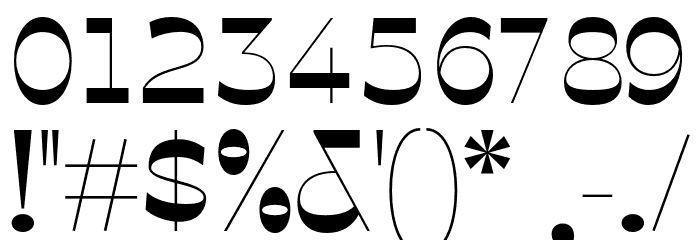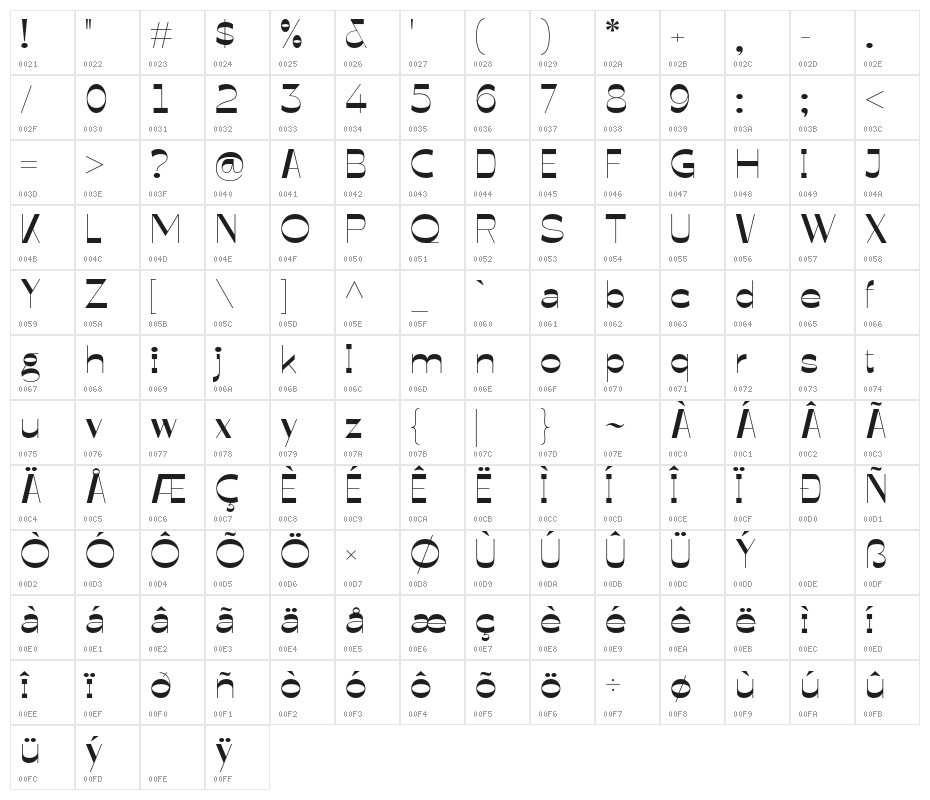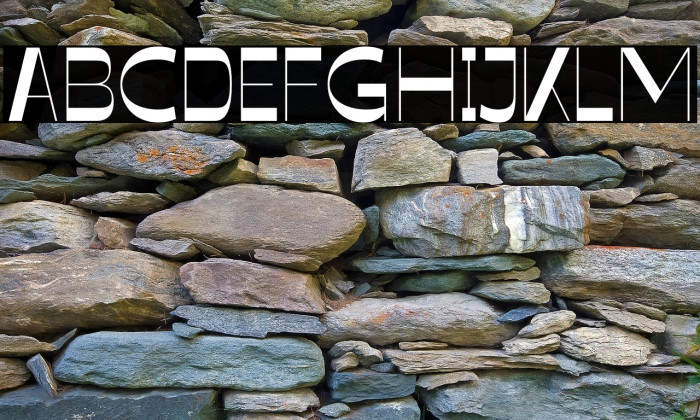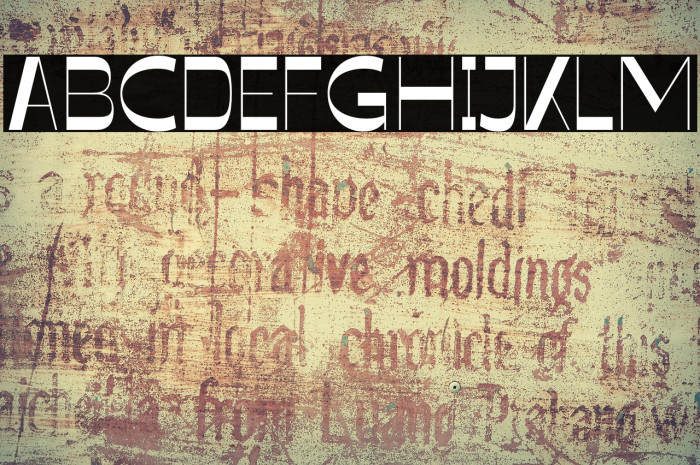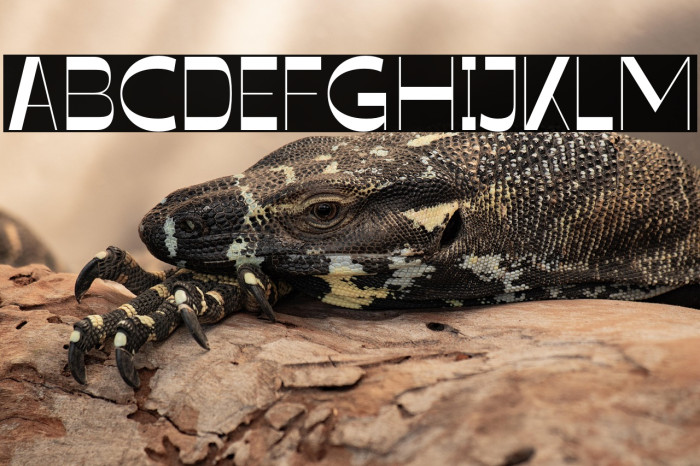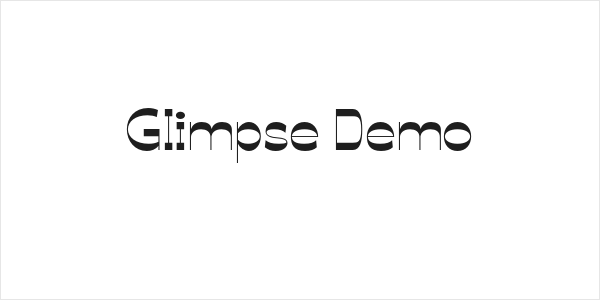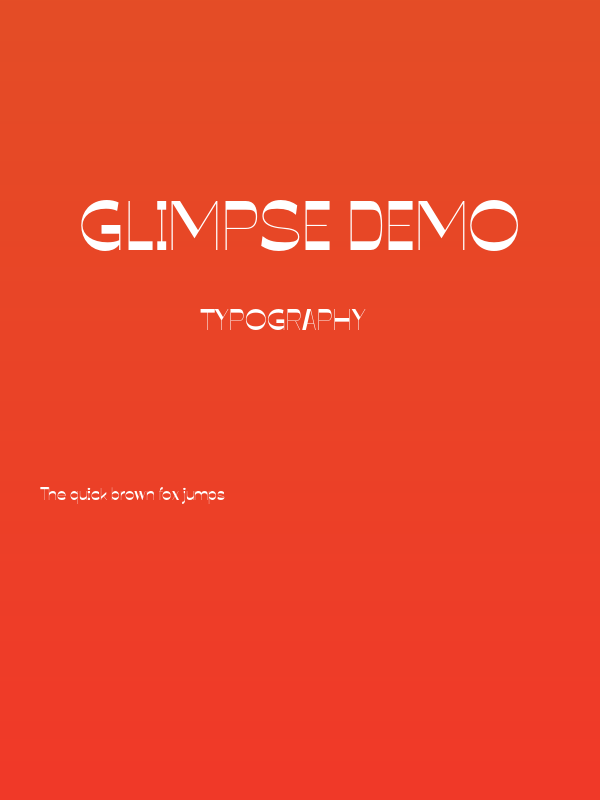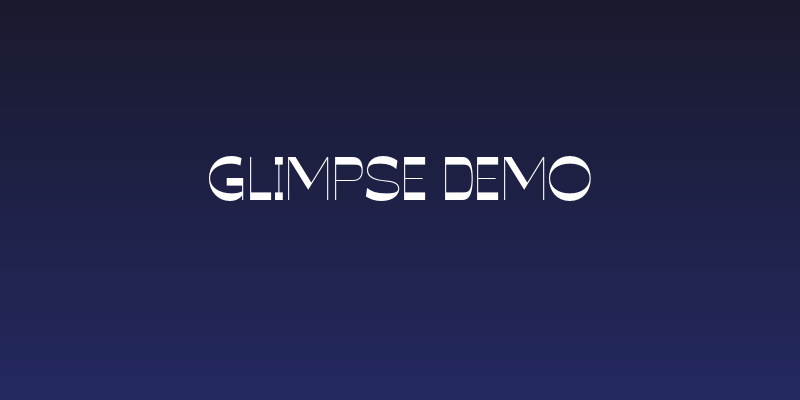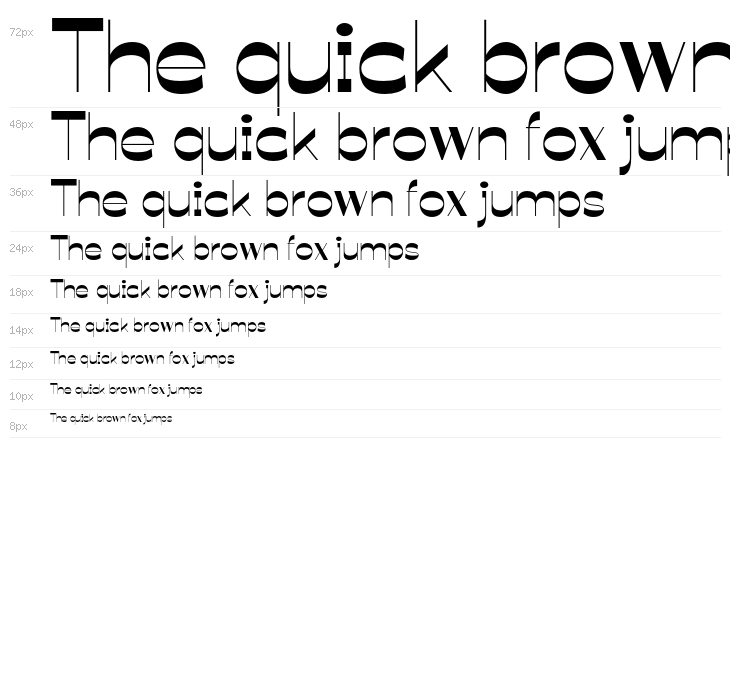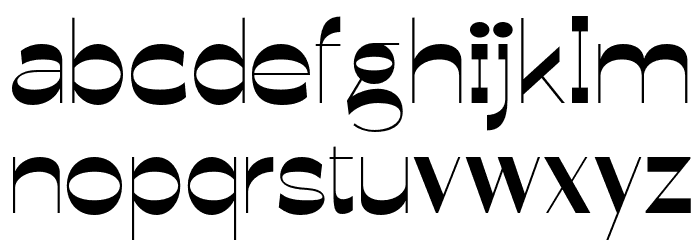
Glimpse Demo Font
Glimpse Demo Description
This font exhibits a modern and geometric style, characterized by its clean lines and distinctive shapes. The uppercase letters are bold and striking, with unique angles and curves that give them a futuristic appearance. The lowercase letters maintain a consistent style, with a slightly more rounded and approachable look. The numerals are bold and clear, ensuring readability. Special characters are designed with the same geometric precision, adding to the overall cohesive aesthetic. This font is ideal for projects that require a contemporary and innovative feel.
Use CaseHeadlines, Logos, Digital Media
Proposed ProjectsIdeal for branding, advertising, and digital media projects that require a contemporary and innovative look.